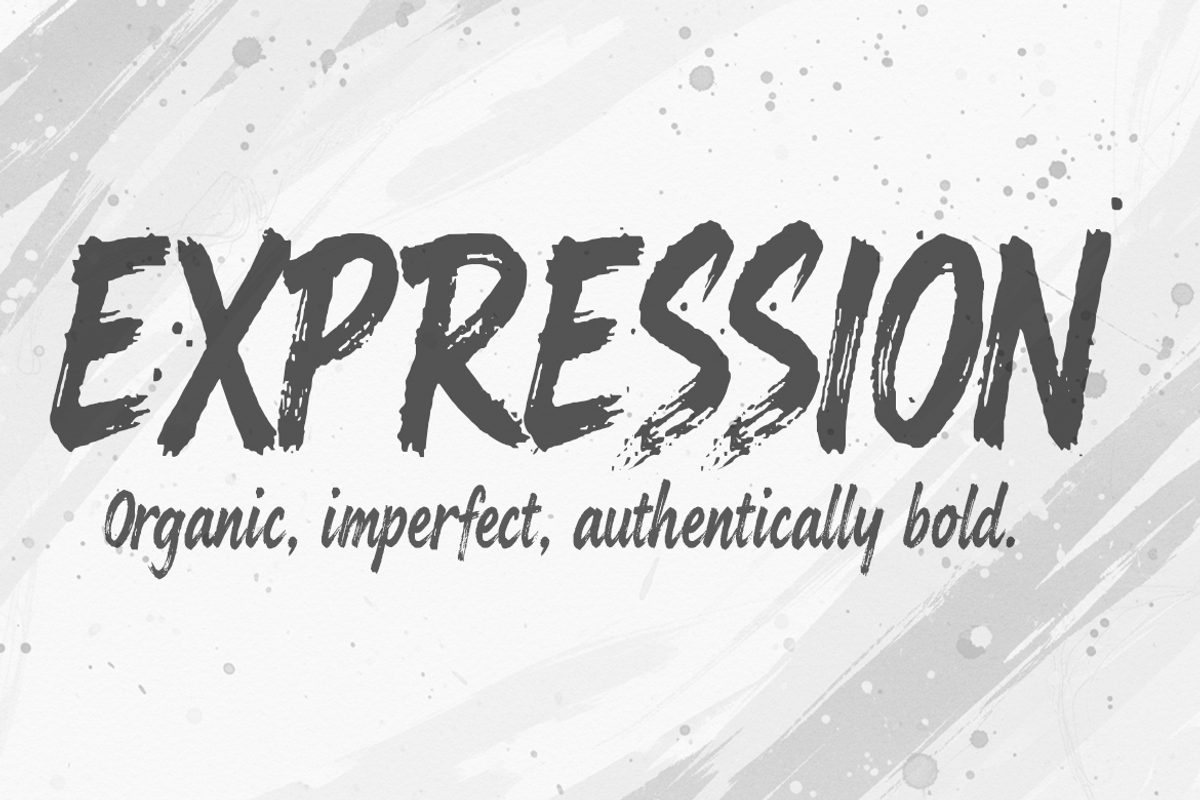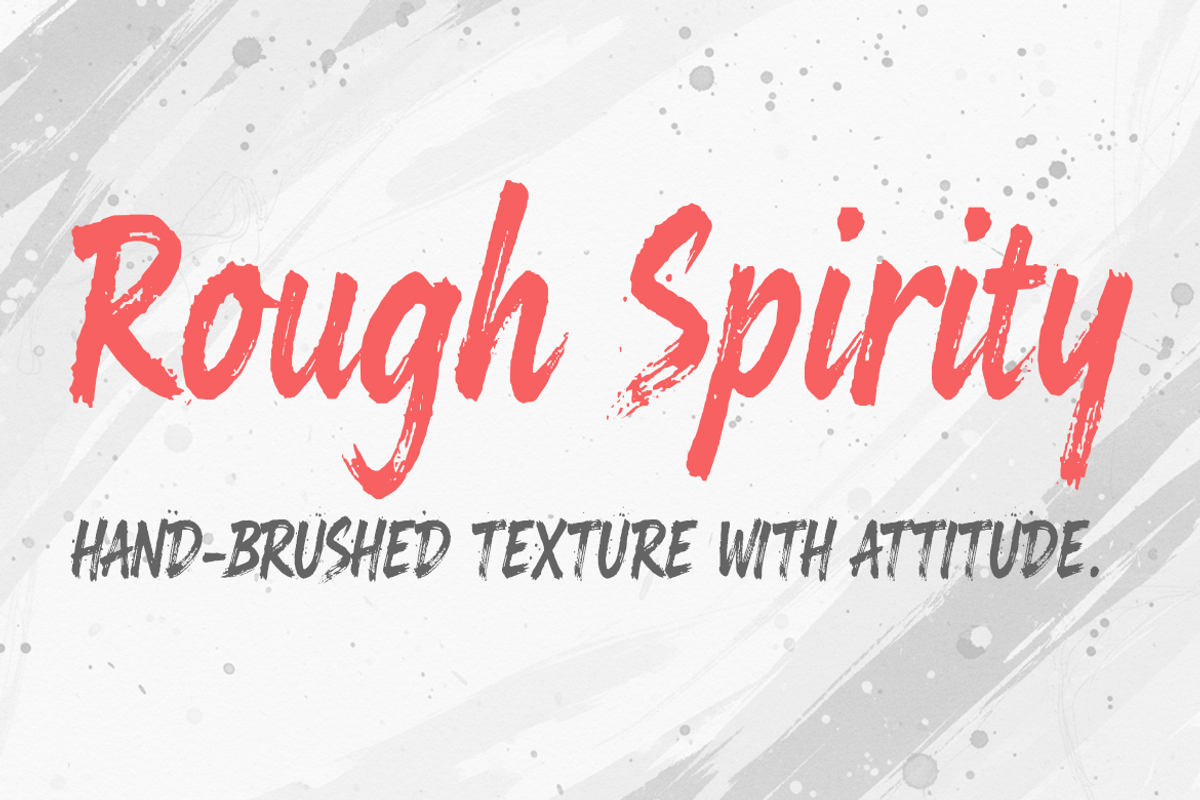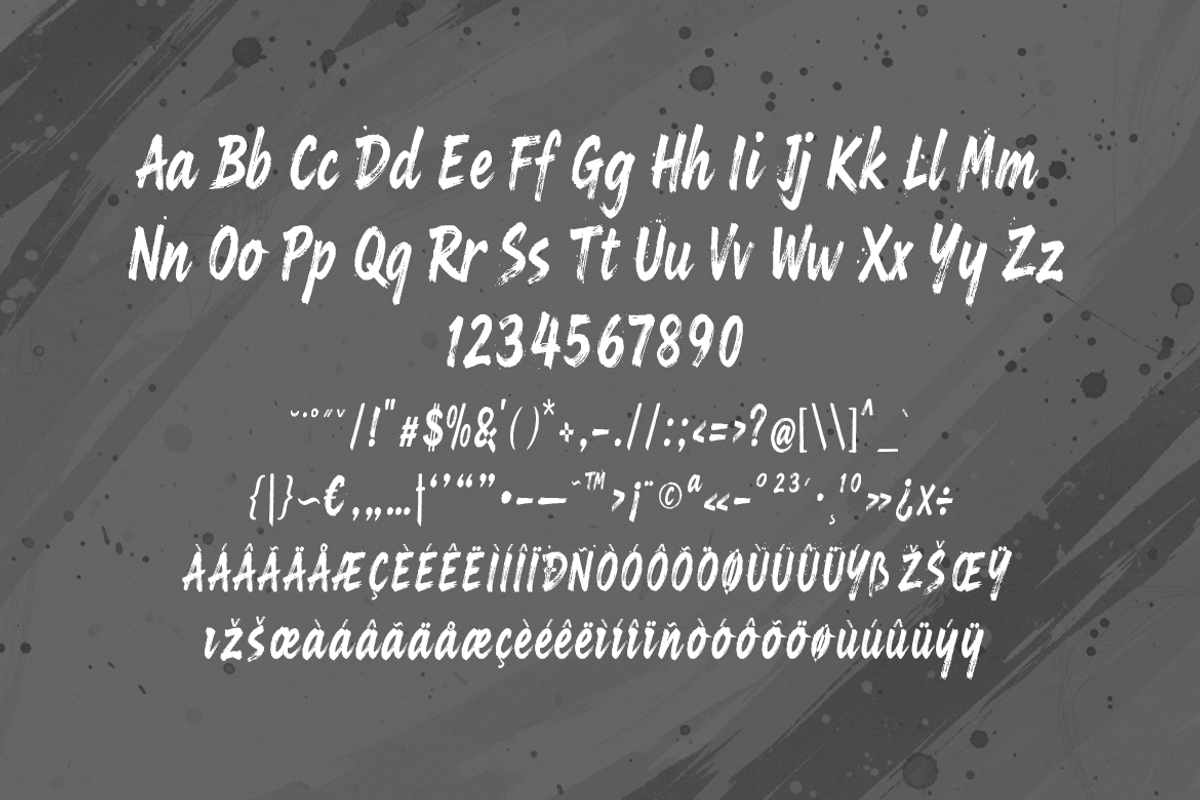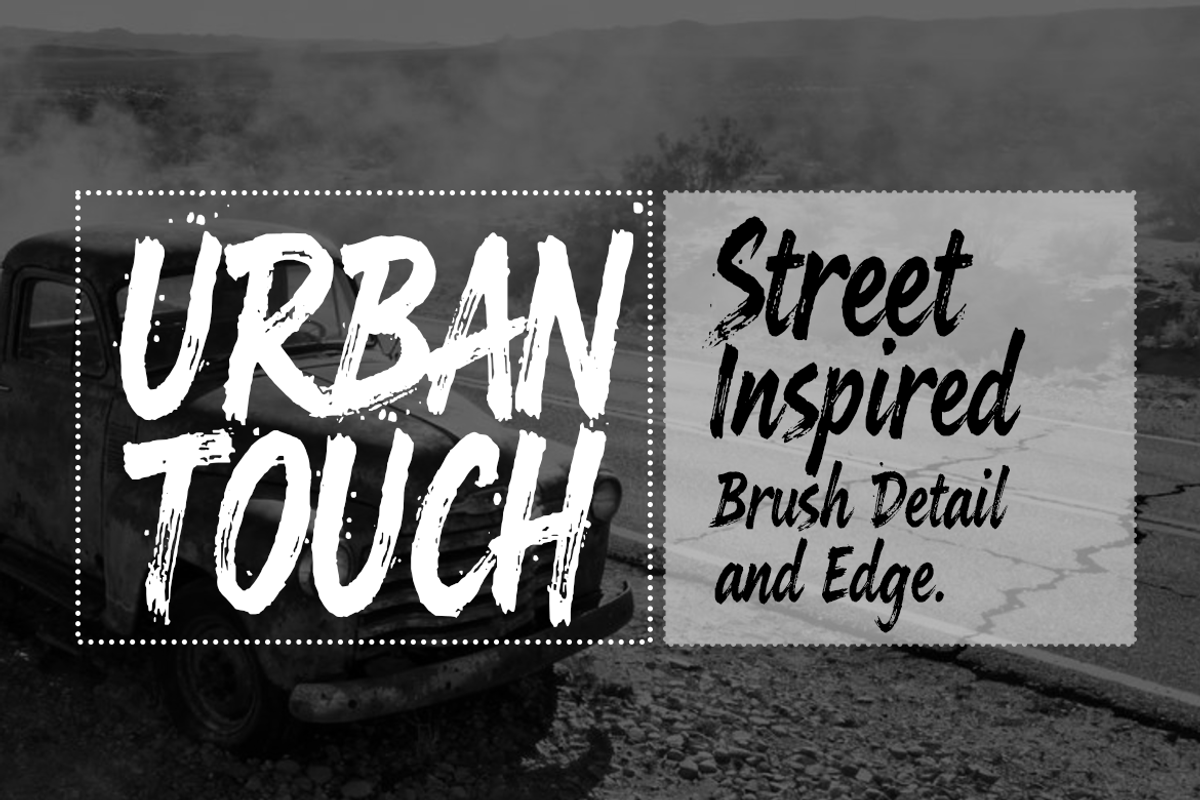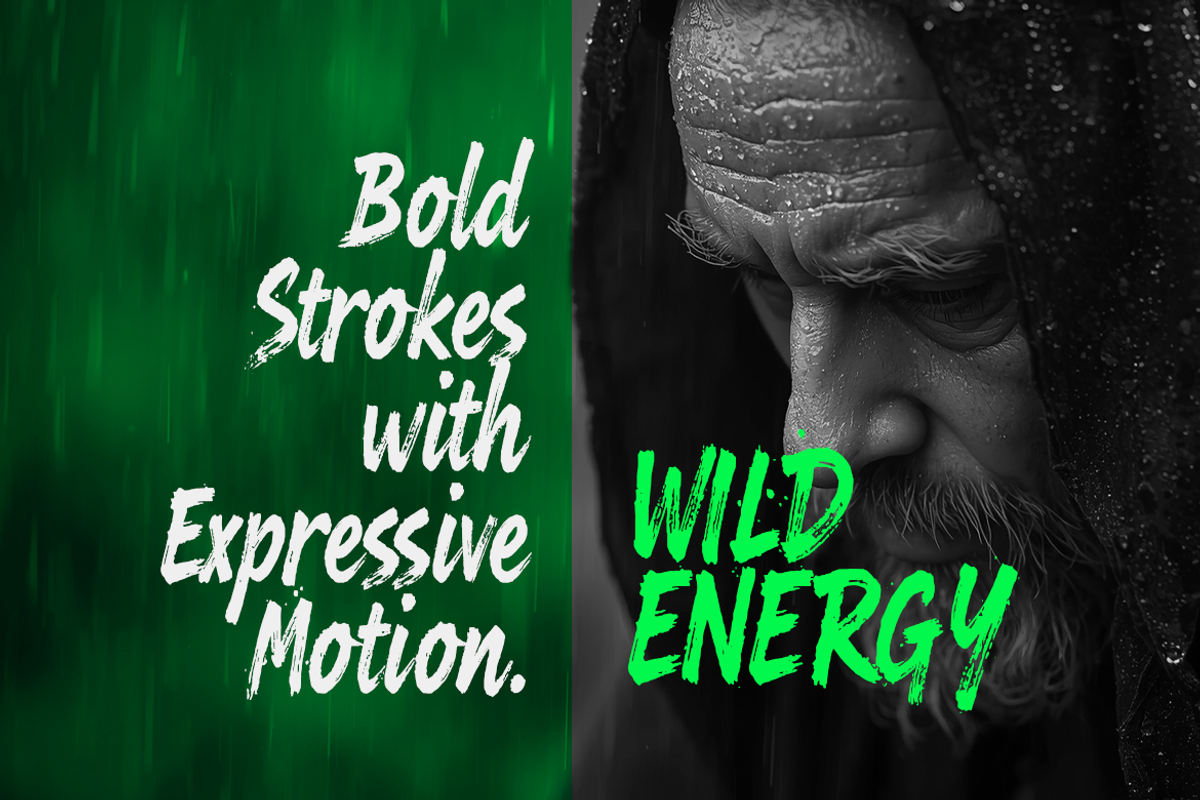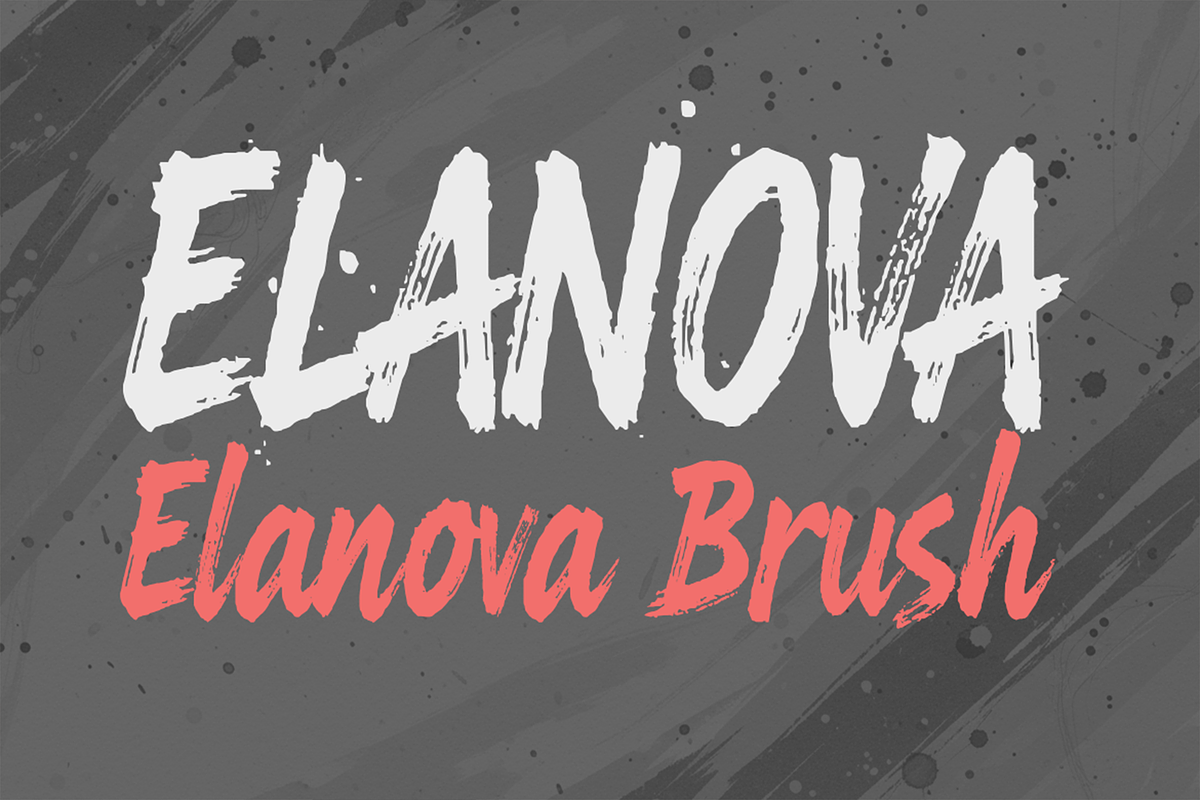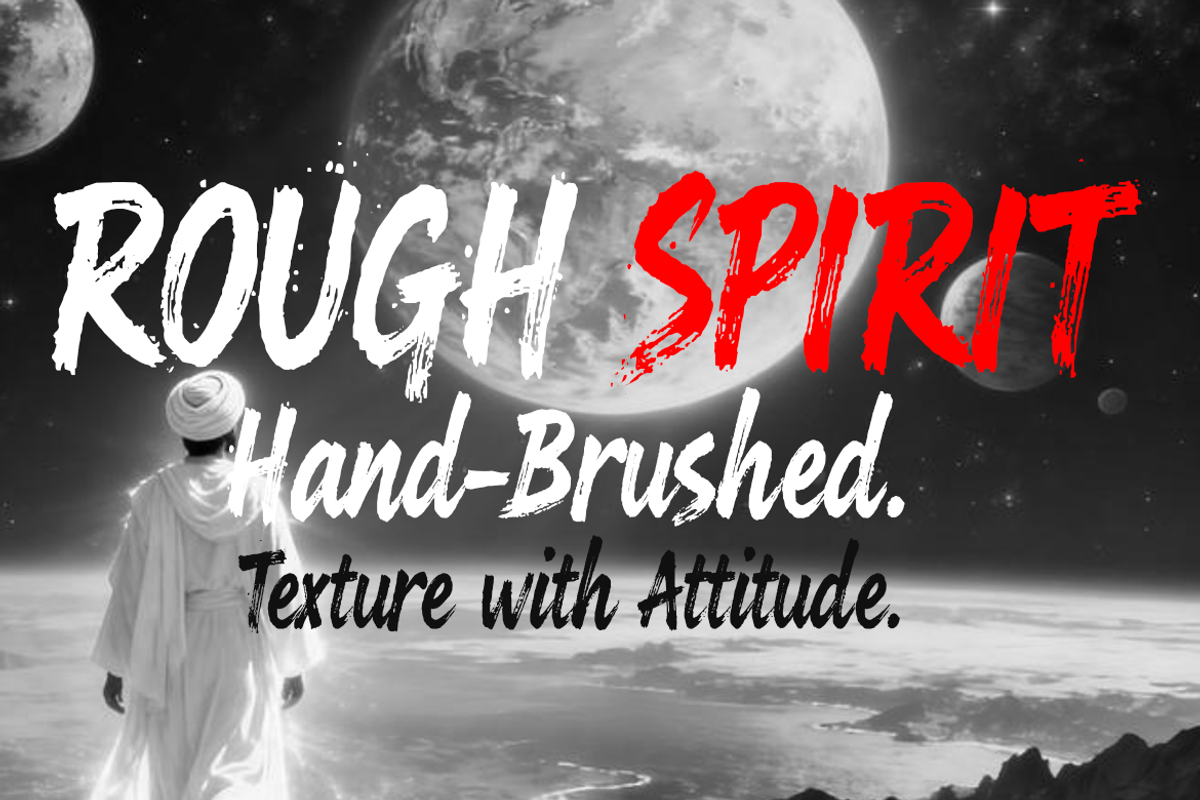
Elanova Bold Handcrafted Brush
Elanova Brush – Bold Handcrafted Brush Font Elanova Brush is a bold and expressive hand-painted brush font designed to bring raw energy and artistic character into your projects. Crafted with dynamic strokes and natural texture, this typeface captures the authentic feel of real brush lettering—perfect for designs that demand personality and impact. With its rough edges, fluid movement, and handcrafted imperfections, Elanova Brush adds a striking visual presence to branding, posters, packaging, merchandise, social media graphics, and any creative work that needs a strong artistic vibe. Whether you’re aiming for a modern street-art look or a bold handmade aesthetic, Elanova Brush delivers powerful style in every letter. File Included: Elanova Brush.ttf Elanova Brush.otf Elanova Brush.woff2 Features: Authentic brush texture Bold and expressive stroke style Uppercase & lowercase letters Punctuation & symbols * Multilingual support Perfect for logos, posters, headlines, apparel, and display design Let Elanova Brush elevate your creative projects with its raw, energetic, and handcrafted charm.